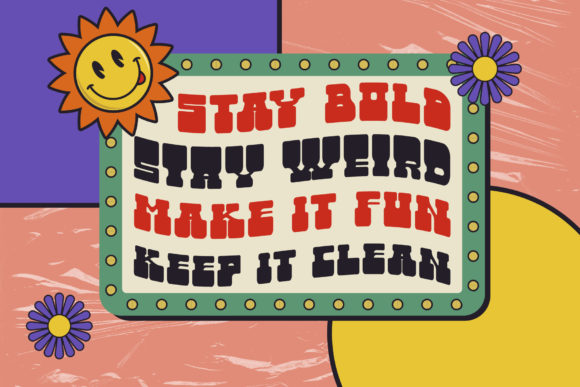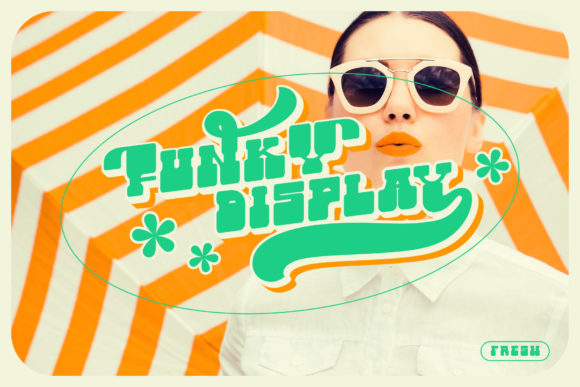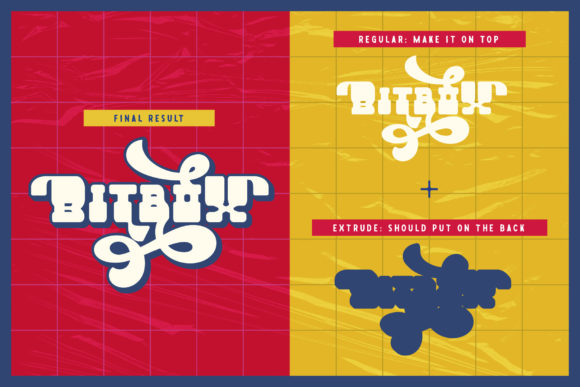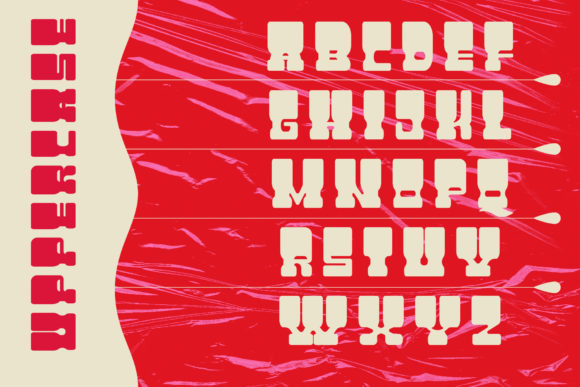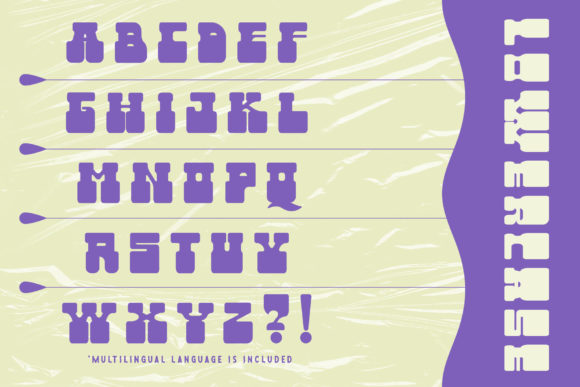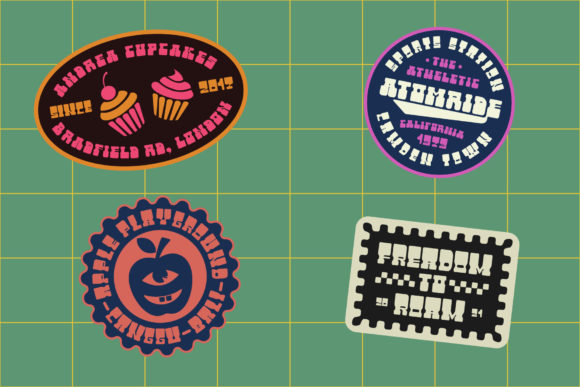
The Retro Charm of Bower Font: A Designer’s Delight
I still remember the struggle of working on a vintage-themed project, desperately searching for the perfect font to capture the essence of a bygone era. The client wanted something that exuded confidence, nostalgia, and a touch of playfulness. That’s when I stumbled upon Bower Font, a retro-styled and bold display font that instantly became my go-to choice. In this article, I’ll share my experience with Bower Font, its features, and how to make the most of it in your designs.
An Honest Review of Bower Font
What I Love About Bower Font ✨
- 💥 Strong and confident: Bower Font reads as bold and dynamic, making it perfect for headlines and logotype projects.
- 🔥 Nostalgic character: The font’s retro style adds a touch of vintage charm to any design.
- 🎨 Versatile: Bower Font can be used in a variety of design projects, from posters and flyers to logos and branding.
- ✅ Easy to read: Despite its bold style, Bower Font remains clear and legible, even at smaller sizes.
- ⚠️ Limited use in body text: Bower Font’s bold style makes it less suitable for body text, where readability is crucial.
- 🤔 Glyph limitations: While Bower Font has a range of glyphs, it may not have every special character or symbol you need.
A Practical Guide to Using Bower Font
The Backstory of Bower Font
Bower Font was crafted with the goal of capturing the essence of retro design, while still being modern and versatile. Inspired by vintage posters, logos, and advertisements, Bower Font’s creator aimed to create a font that would add a touch of nostalgia and playfulness to any design. The result is a bold, confident, and dynamic font that’s perfect for headlines, logotypes, and more.
Q: What is Bower Font best used for?
A: Bower Font is ideal for headlines, logotypes, posters, flyers, and other display text applications where a bold, retro style is desired.
Q: Can I use Bower Font for body text?
A: While Bower Font can be used for body text, its bold style makes it less suitable for extended reading. It’s best used for titles, headings, and short paragraphs.
Q: Is Bower Font suitable for digital use?
A: Yes, Bower Font is designed to be legible on digital screens, making it perfect for website headers, social media graphics, and more.